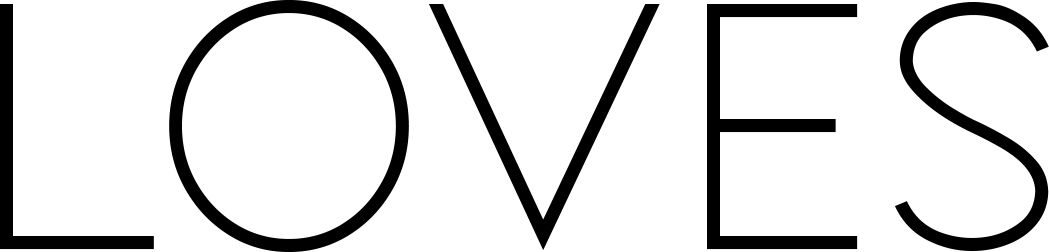
Loves Font
Loves is a sans serif font that does not support lowercase letters and its characters are designed with an exclusive elegance. When it is used in graphic work such as producing e-books, designing restaurant menus, or billboards, it conveys a sense of closeness, modernity, and intimacy to viewers, therefore it will drastically increase your content efficiency.